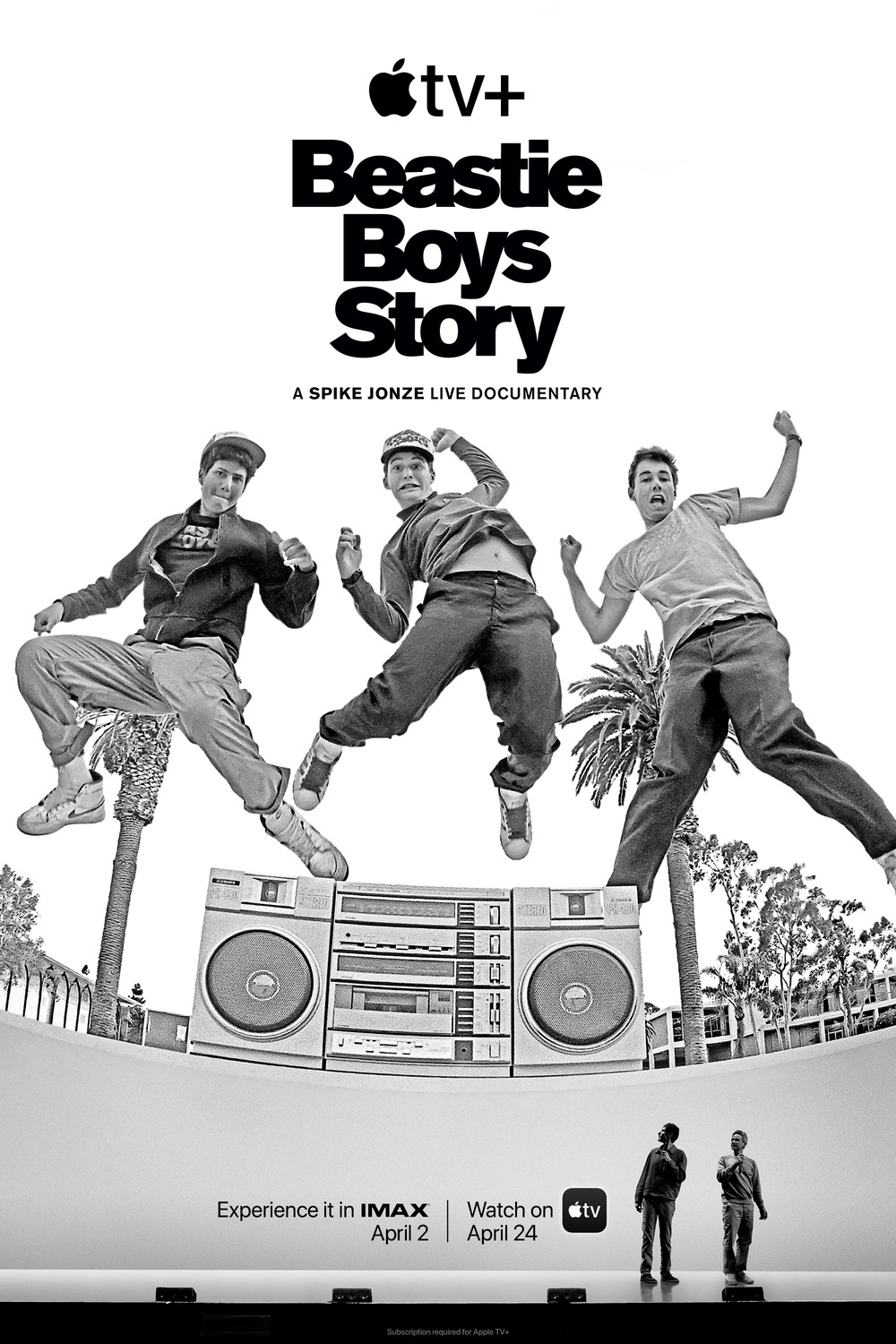
Beastie Boys Story Font
DocumentaryBeastie Boys Story is a documentary film that tells the story of the iconic hip-hop group, featuring interviews with band members Mike D and Ad-Rock, as well as rare footage and never-before-seen photos.
The title of the poster as seen above is positioned in the center and uses a tightly spaced font called Akzidenz Grotesk Super originally released in 1898 by Berthold, which influenced the Helvetica design.